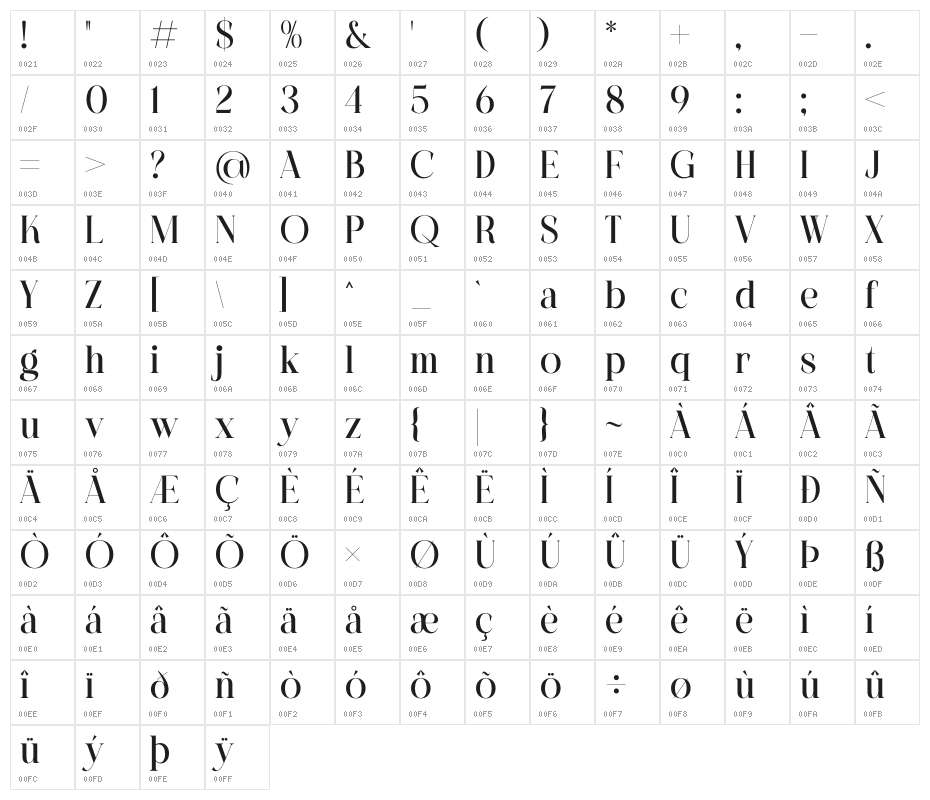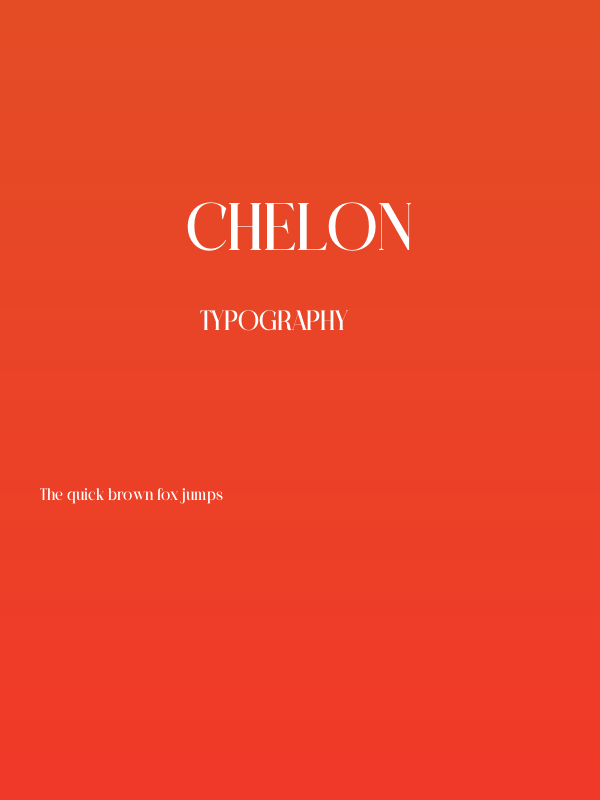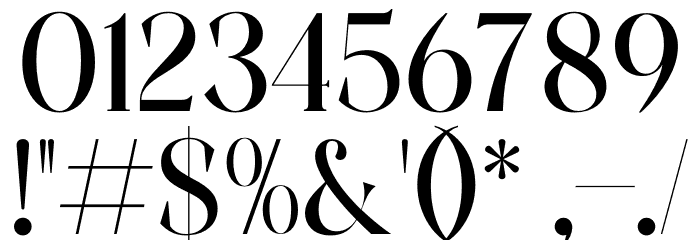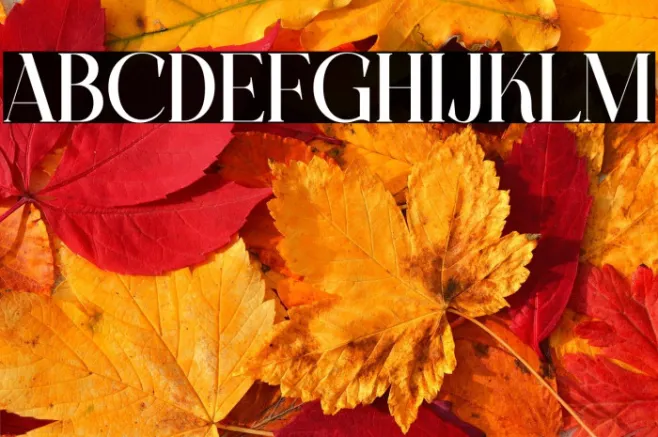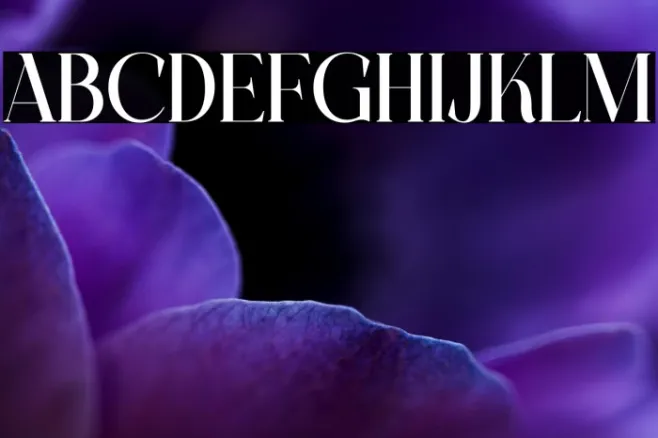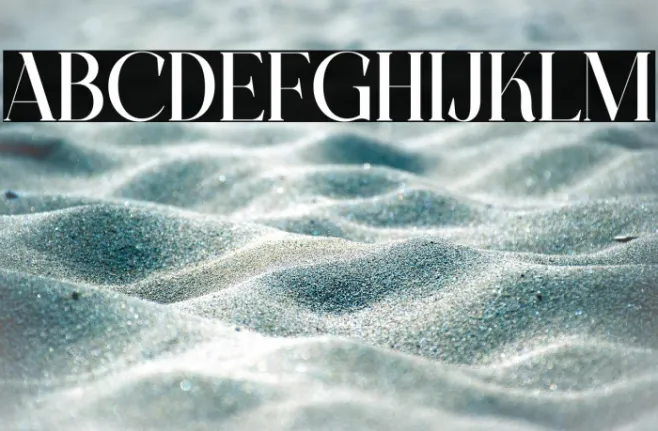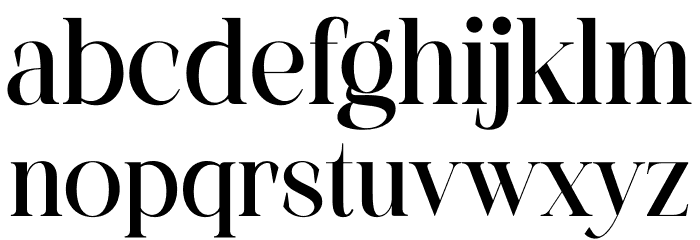
CHELON Font
CHELON Description
This font features a sophisticated and elegant serif style with high contrast between thick and thin strokes. The uppercase letters are tall and commanding, while the lowercase letters maintain a refined and balanced appearance. The numerals are distinct and clear, making them easily readable. Special characters are designed with a touch of flair, adding to the overall elegance of the typeface. The font's design is both classic and modern, making it versatile for various applications.
| Use Case | Headlines, Logos, Editorial design |
| Proposed Projects | Ideal for luxury branding, editorial design, wedding invitations, and high-end product packaging. |